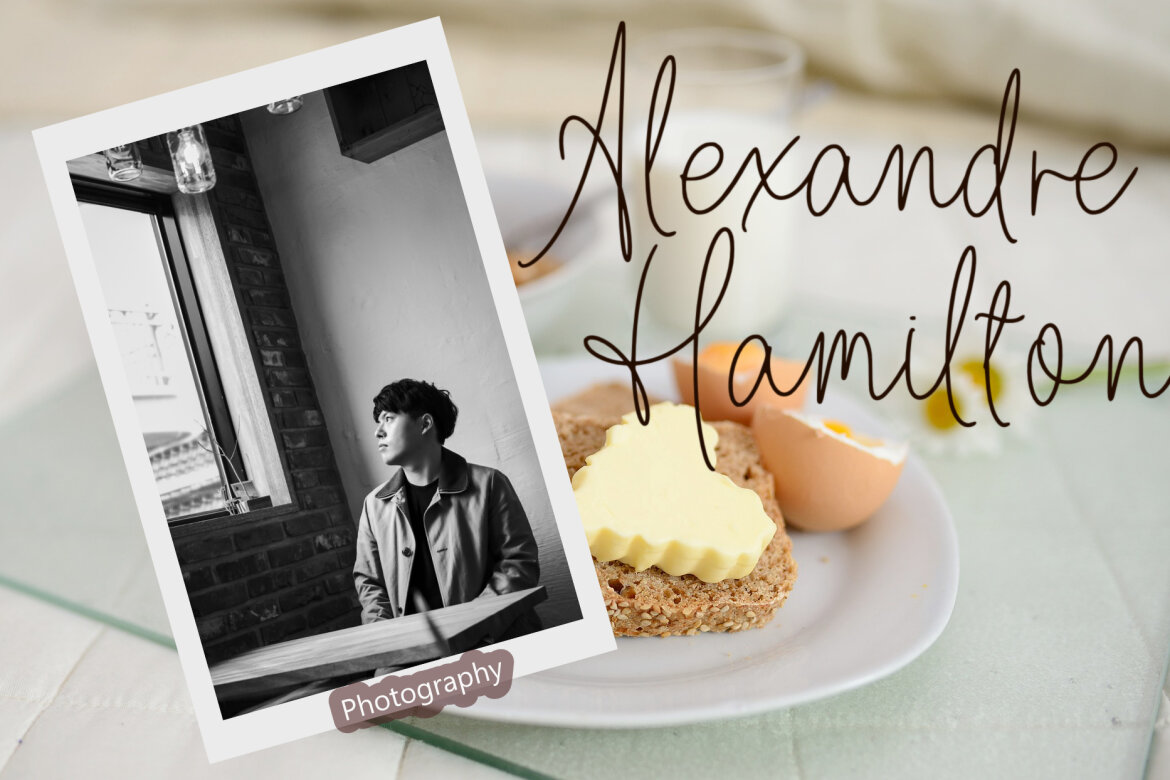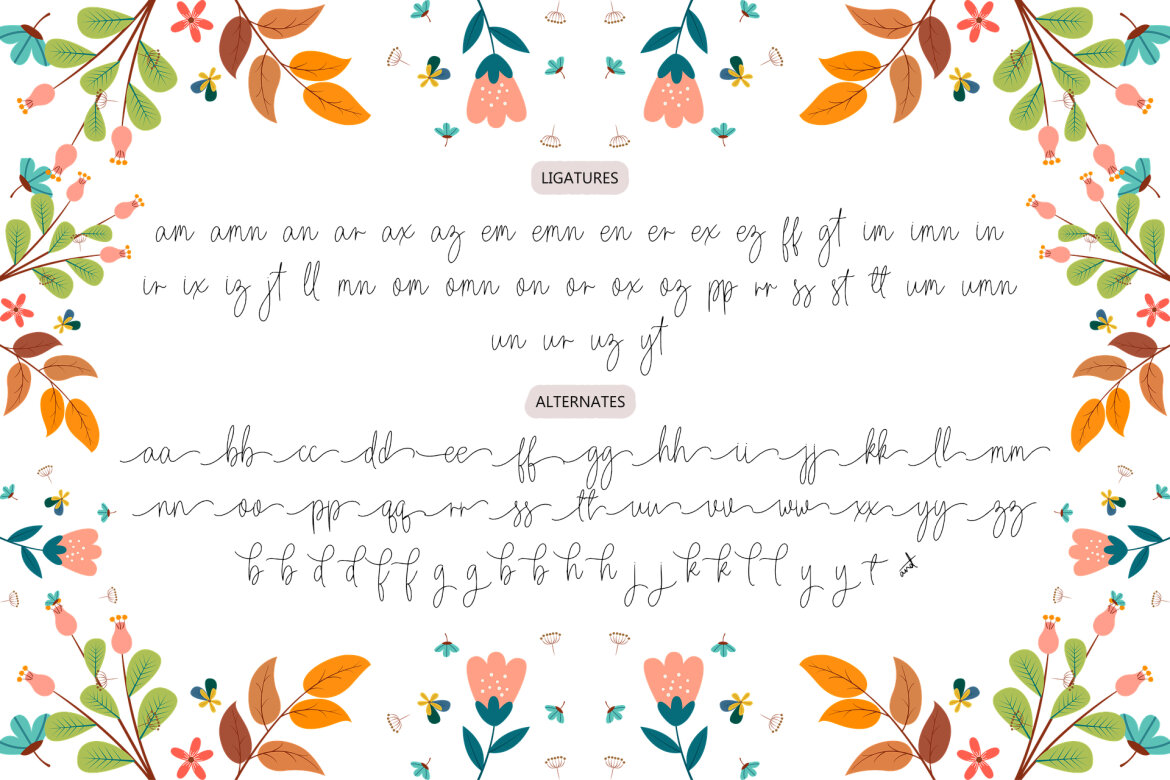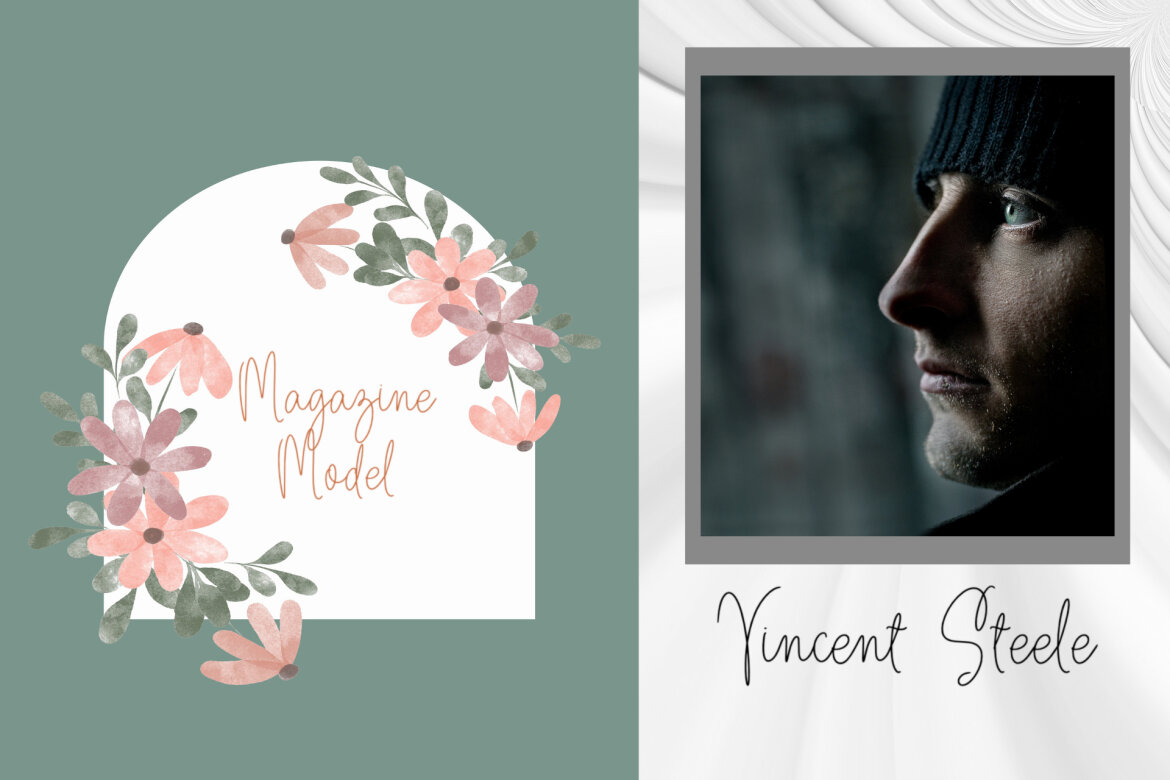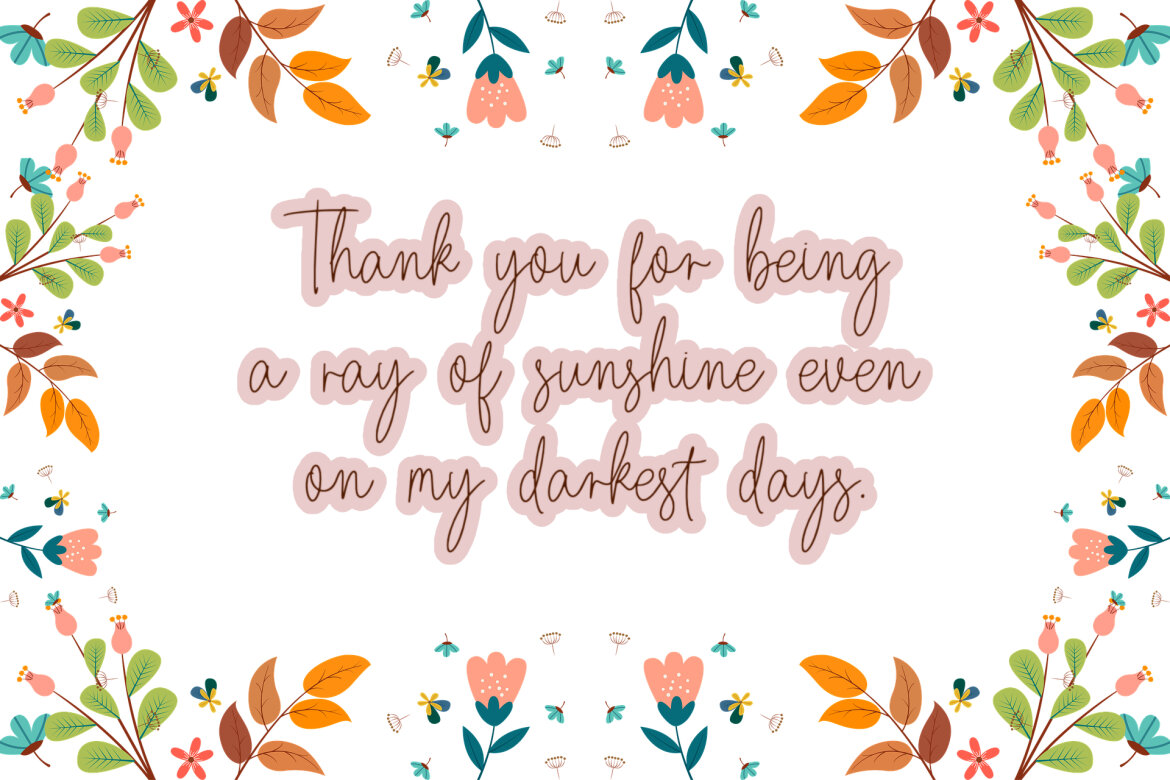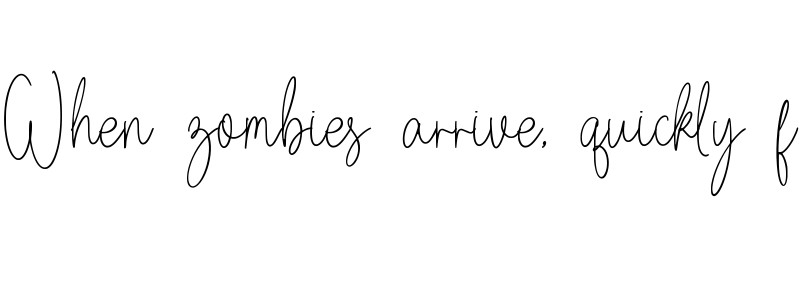
Harboline
Harboline is a sleek and modern monoline font with a touch of elegance. Its clean, uniform strokes give it a timeless appeal, making it perfect for everything from branding and logos to wedding invitations and social media graphics. With a refined balance between minimalism and charm, Harboline is designed to elevate your projects with a sophisticated, yet approachable feel. Whether you're designing for print or digital, this font is your go-to for creating polished, professional looks.
• alternate
• ligature